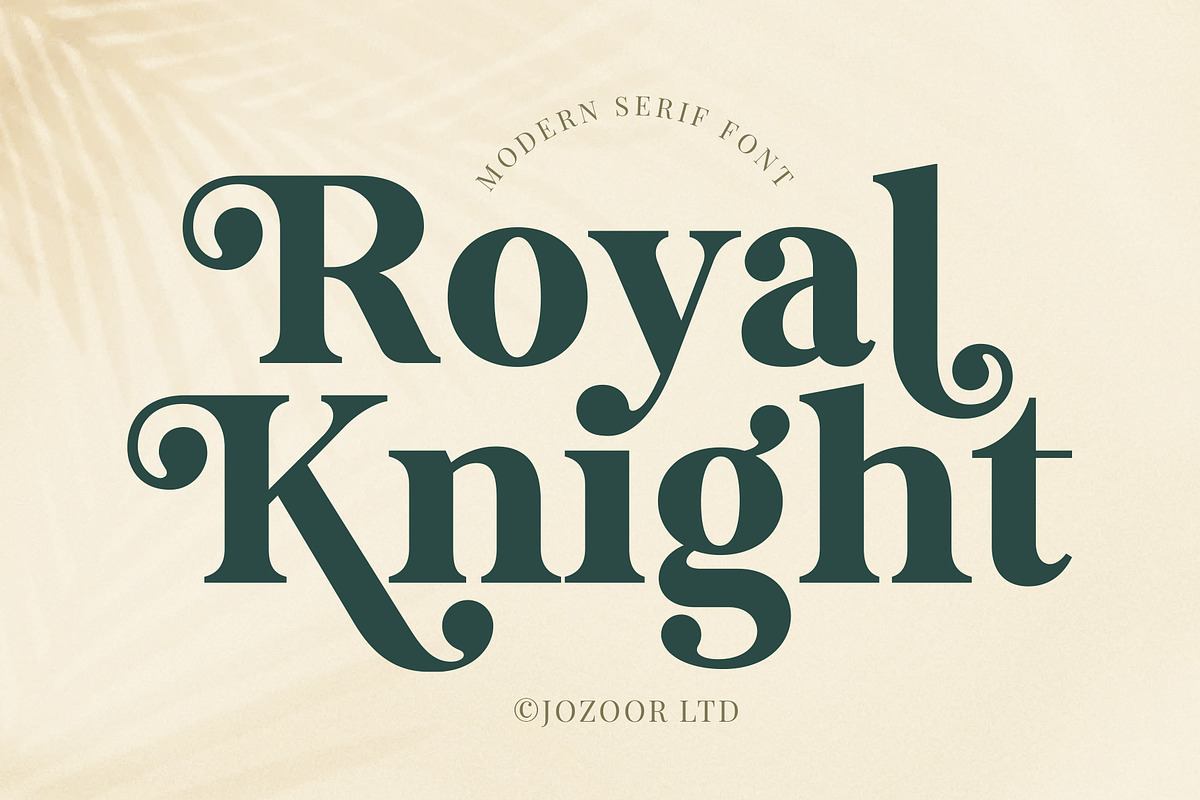
Royal Knight - Modern Serif Font Free Download
Royal Knight - Modern Serif Font Free Download is a bold and elegant typeface that blends traditional serif design with a modern twist. Featuring sharp lines, high contrast, and a regal feel, Royal Knight is perfect for luxury branding, editorial headlines, high-end product packaging, and any design that demands sophistication and authority.
Royal Knight - Modern Serif Font Free Download brings a touch of elegance and strength to your typography. Whether you're working on a premium brand identity, creating stylish magazine layouts, or designing upscale promotional materials, this font elevates your project with timeless class and modern flair. Download it today and give your designs a royal, high-end presence with Royal Knight!